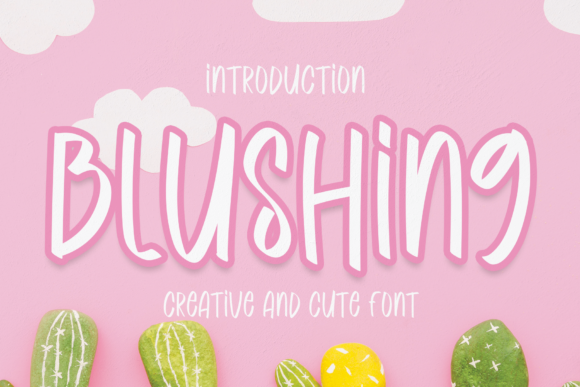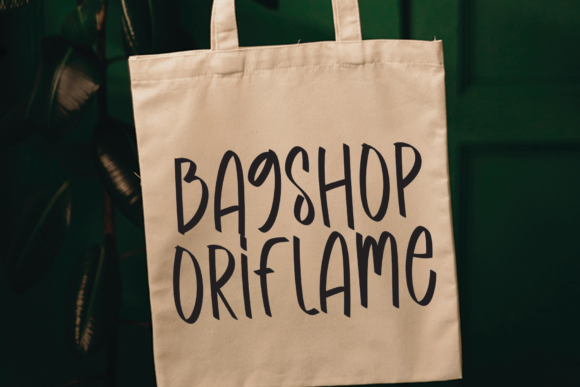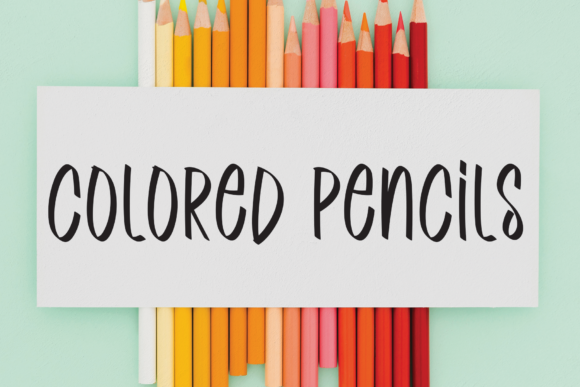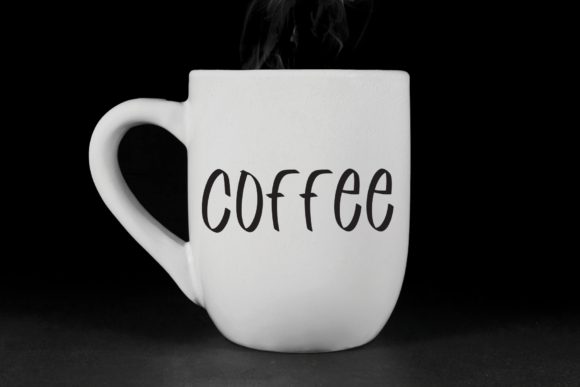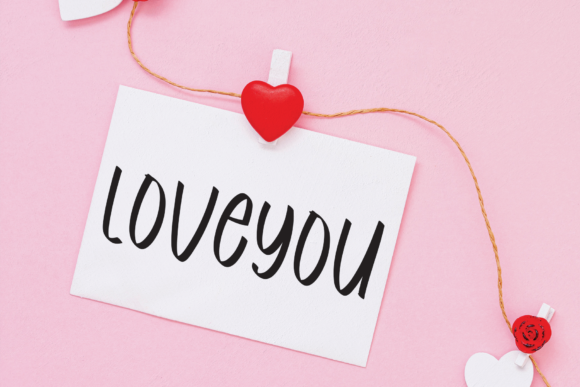
Blushing Font
About Blushing Font
Blushing is a fun and dainty handwritten font. Its playful characters and charming style make this font a great choice for summery projects, apparel designs, product packaging, branding, and so much more!